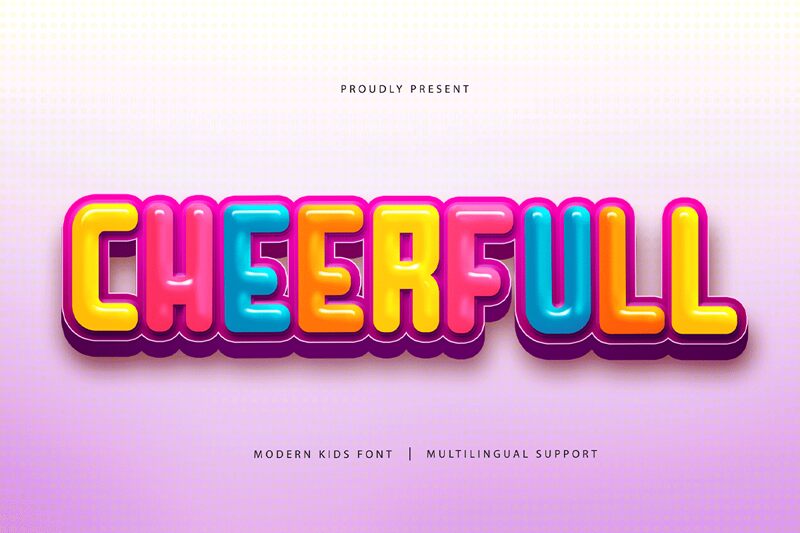
Cheerfull font by Kong Font makes text inviting with its friendly condensed design. This display font merges contemporary and geometric influences, projecting an approachable vibe. Its rounded and structured look gives it a distinctive personality that’s perfect in both small and large sizes.
This free display font is great for any poster, a modern title for magazines or books, anywhere on websites, or packaging of all sorts. Use it on clothing items like t-shirts, hats, or bags. It works well in animated infographics and videos as other possible use cases.